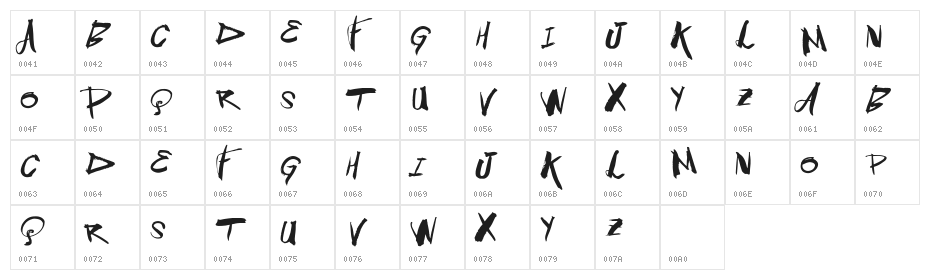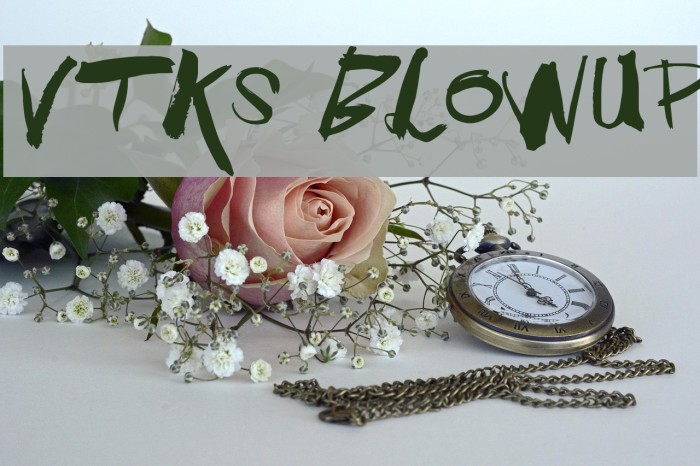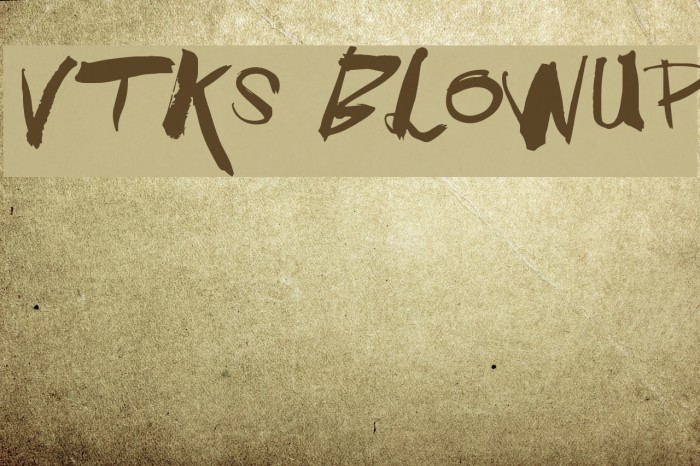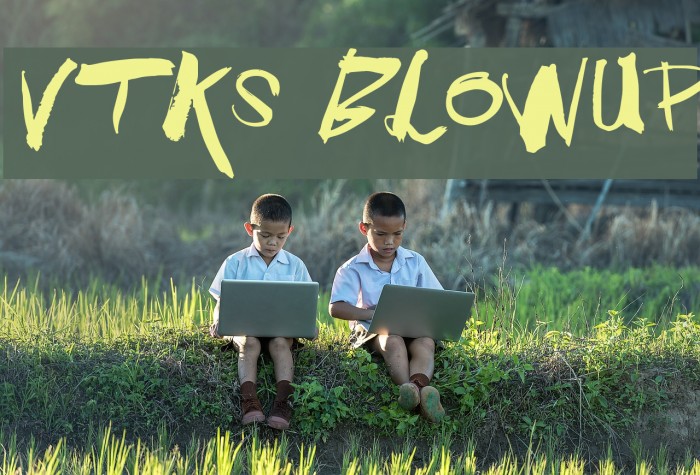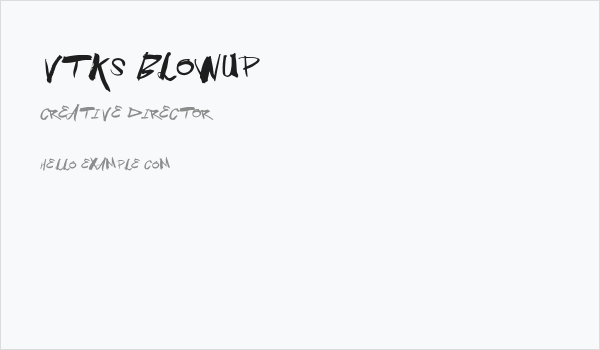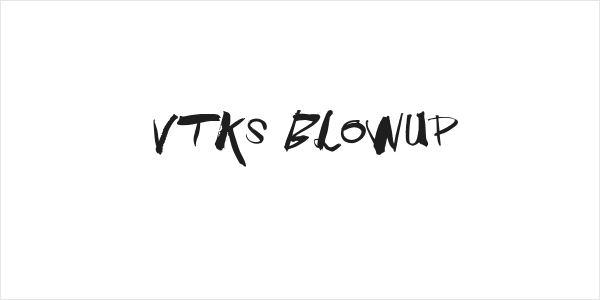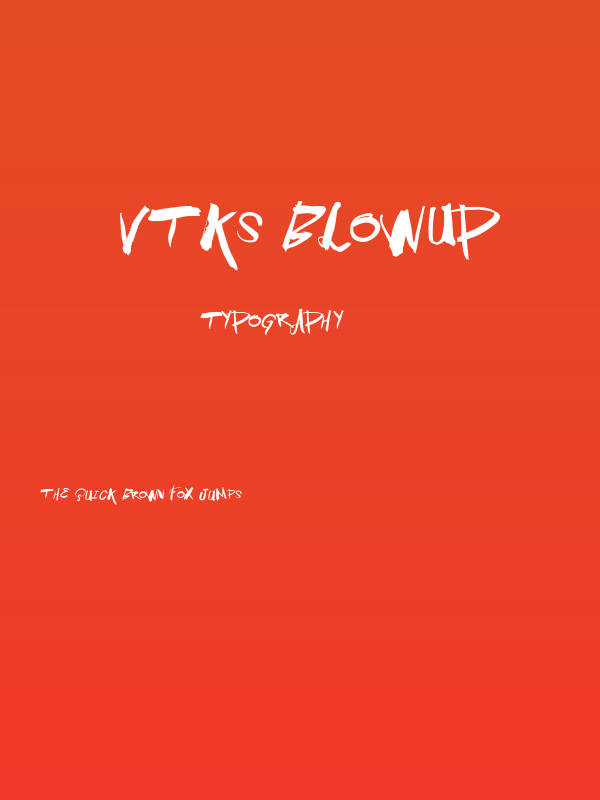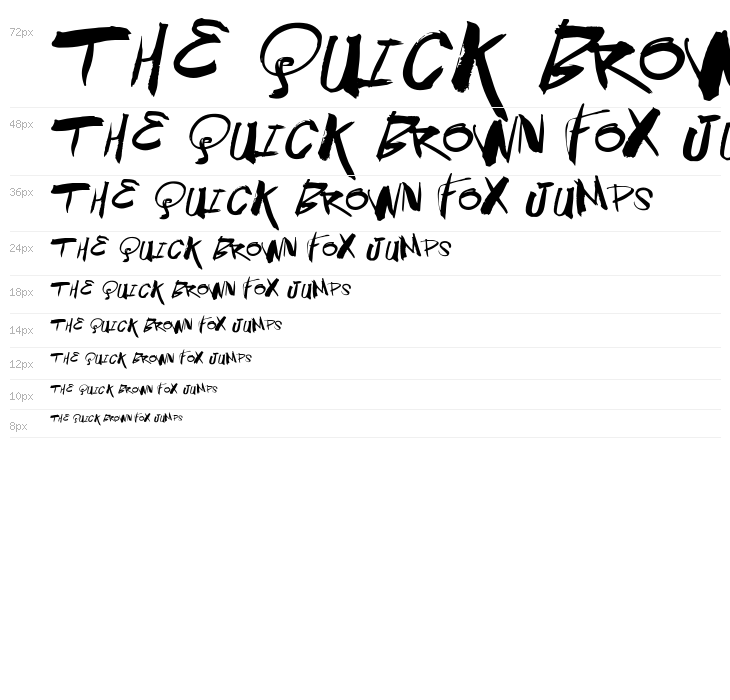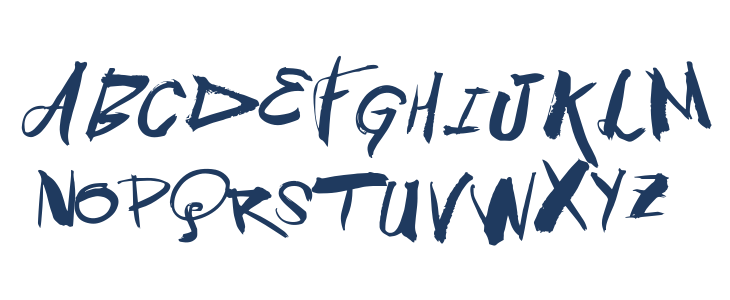
Vtks BlowUp Font
Vtks BlowUp Description
This font features a bold, expressive style with a hand-drawn appearance. The letters are characterized by sharp, angular strokes and a dynamic, energetic flow. The uppercase letters are particularly striking, with exaggerated serifs and varying line thickness that create a sense of movement and intensity. The lowercase letters maintain this energy, with a slightly more compact form. The overall look is reminiscent of graffiti or street art, making it ideal for projects that require a bold, artistic touch. The font's unique style makes it stand out, ensuring that any text set in this typeface will capture attention.
| Overall Style | Modern, Artistic |
| Proposed Projects | Ideal for posters, album covers, streetwear branding, and any project needing a bold, artistic flair. |